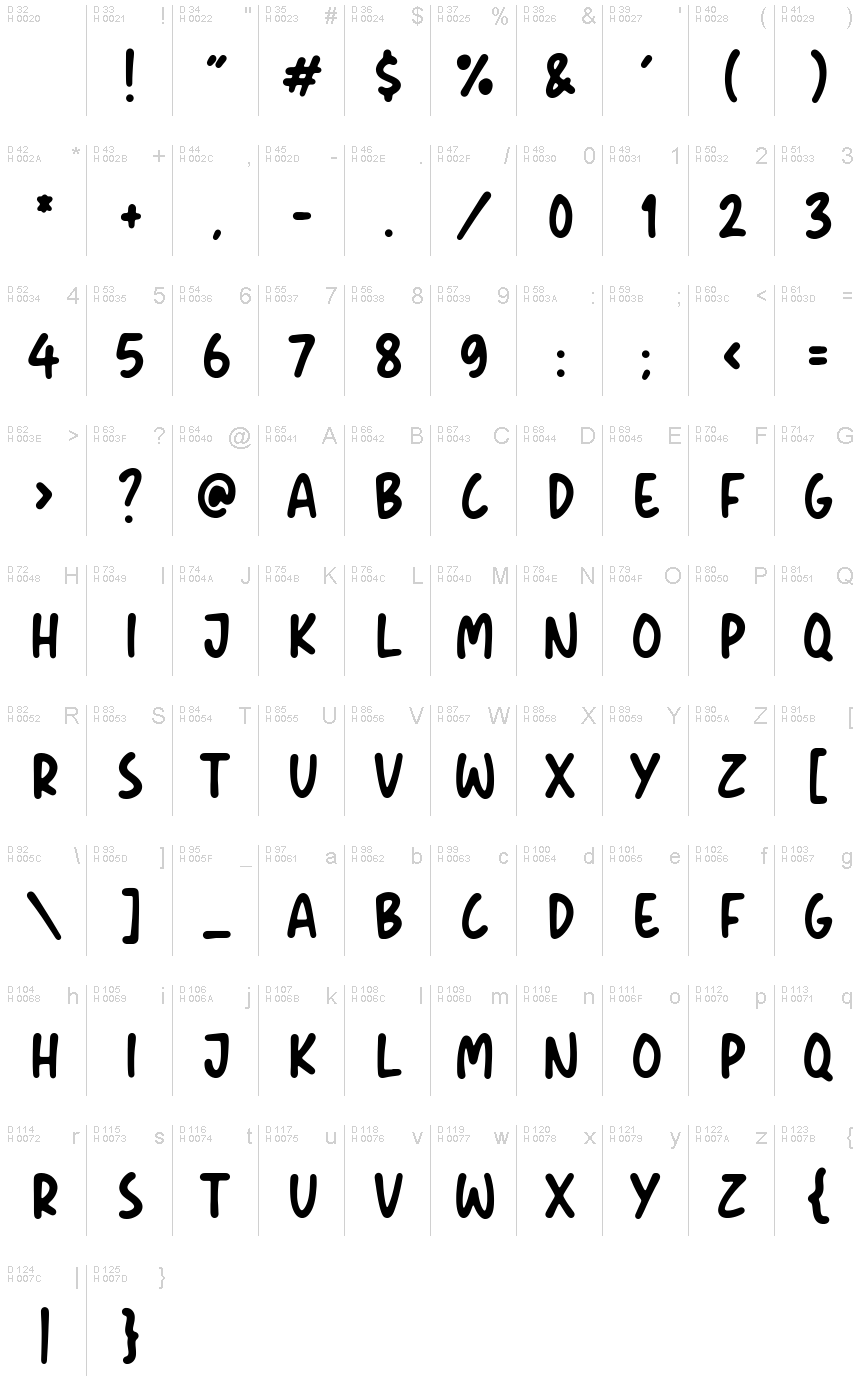
Cupid Gummies
Cupid Gummies font, crafted by Balpirick Studio, embodies a delightful cartoon style that infuses any design with playful charm. Its bold and whimsical forms have an engaging personality, making it ideal for captivating audiences of all ages. The font’s dynamic curves and exaggerated shapes evoke a sense of joy and creativity, perfect for projects that seek to establish a cheerful atmosphere.
The cheerful aesthetics lend themselves beautifully to children’s products, party invitations, or branding aimed at younger demographics. Additionally, the vibrant essence of Cupid Gummies makes it an excellent choice for marketing materials where fun and light-heartedness are paramount. This display font stands out with its unique character—an effective tool to make any message memorable and inviting.